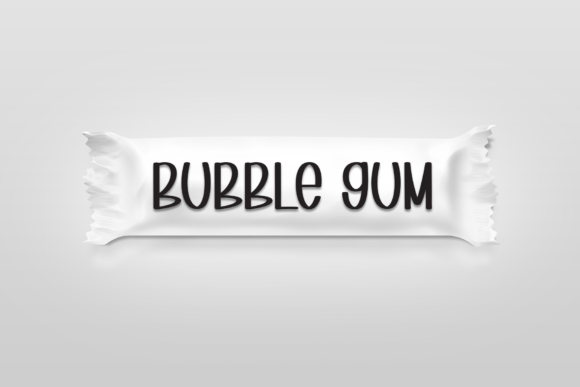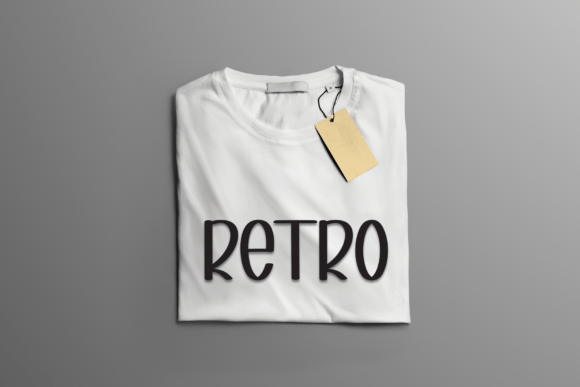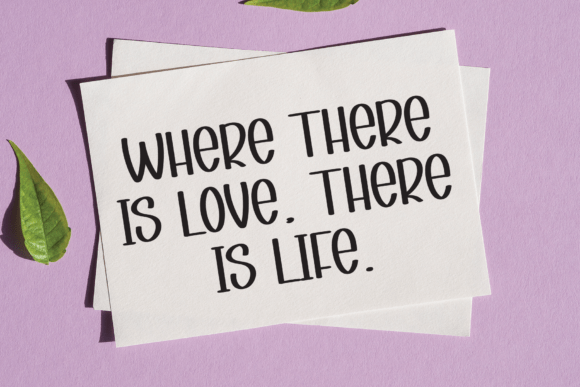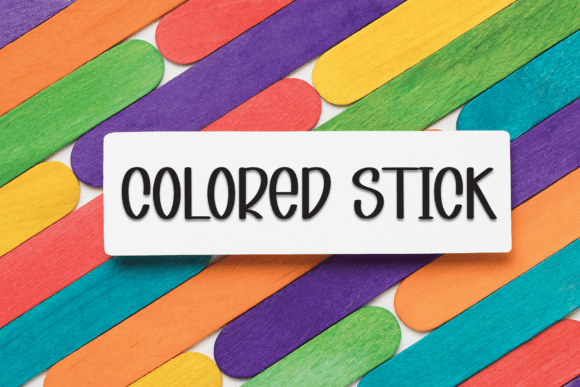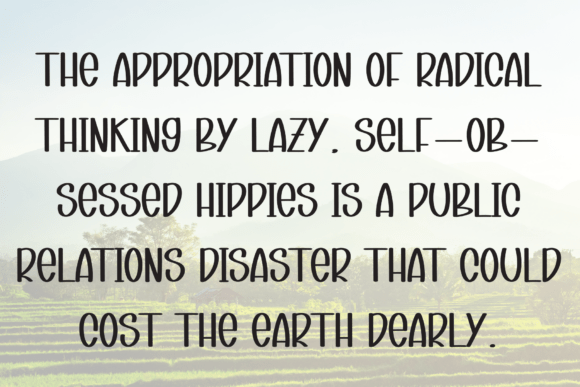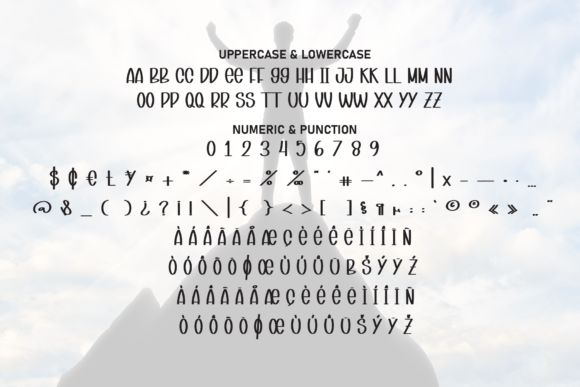
Introduction to Simple Winner Font
Immerse yourself in the charm of our wonderfully whimsical handwritten display font.
Radiating sweetness and friendliness, this adorable font delivers a delightful fun touch to your creative projects Perfect for drafting heartwarming wedding invitations, crafting personalized cards, or infusing a sense of joy into any design scenario, this enchanting handwriting-inspired font is the epitome of lovable elegance.